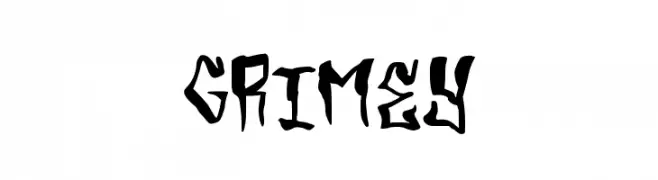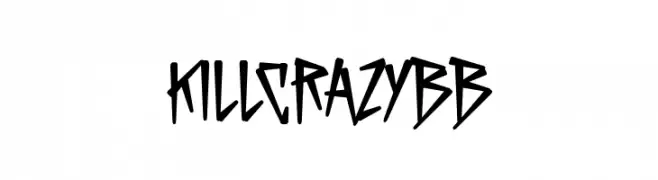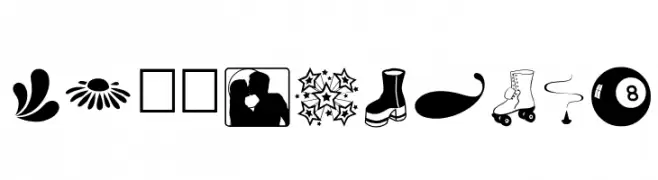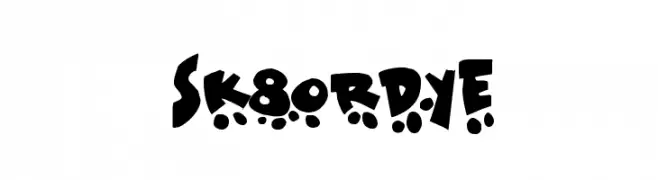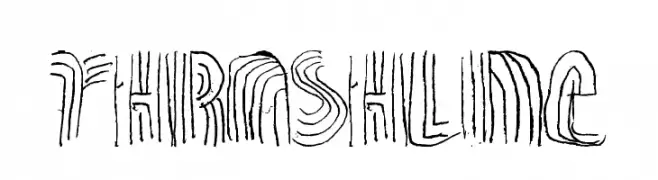
( Fonts by www.typodermicfonts.com - Ray Larabie )
A bold, edgy font with sharp, angular elements and a rebellious feel.
( Fonts by billyargel.blogspot.com - Billy Argel )
A bold, hand-drawn font with dynamic, parallel lines for an energetic look.
( Fonts by Rodrigo German - RASDESIGN )
A playful collection of hand-drawn dingbats featuring whimsical designs.
A collection of 1970s-themed decorative icons and symbols.
( Fonts by www.blambot.com )
A bold, angular font with a rebellious, graffiti-like aesthetic.
( Fonts by billyargel.blogspot.com - Billy Argel )
A bold, grunge-style font with a dripping, graffiti-like appearance.
( Fonts by Jacob Fisher - www.pizzadude.dk )
A bold, playful font with an edgy, graffiti-inspired style.